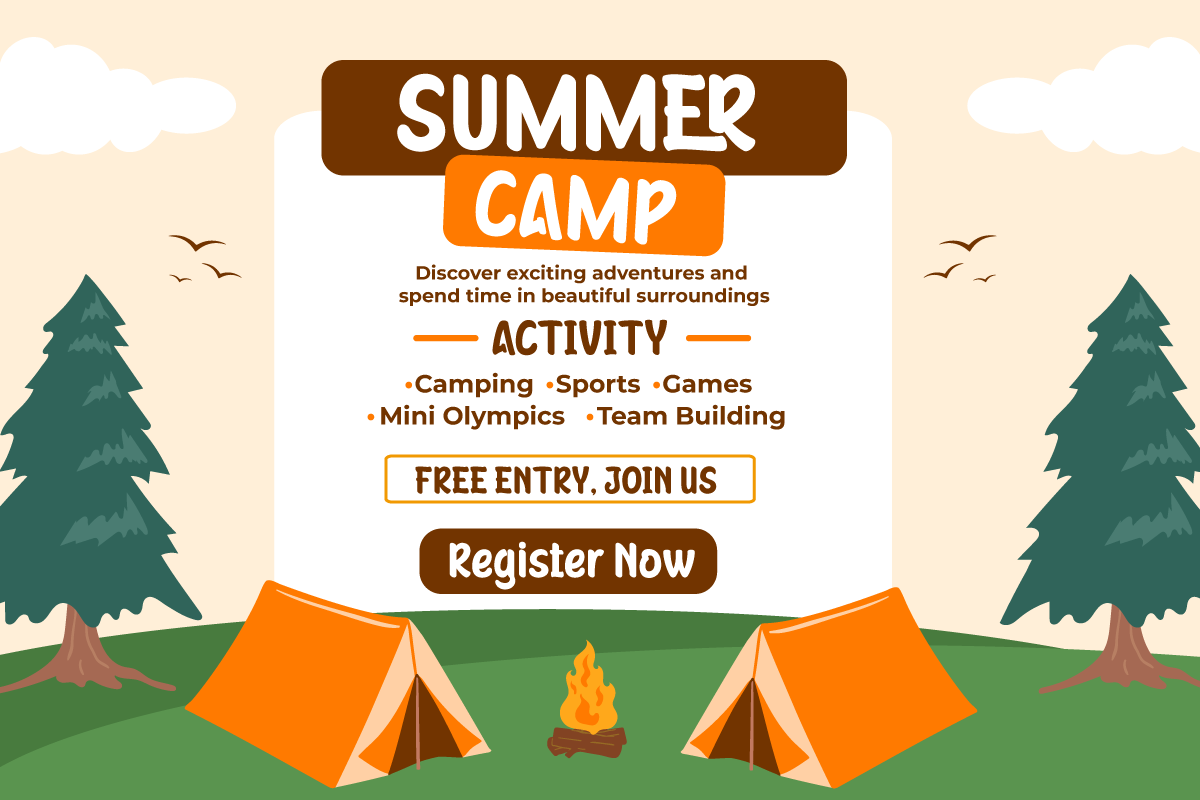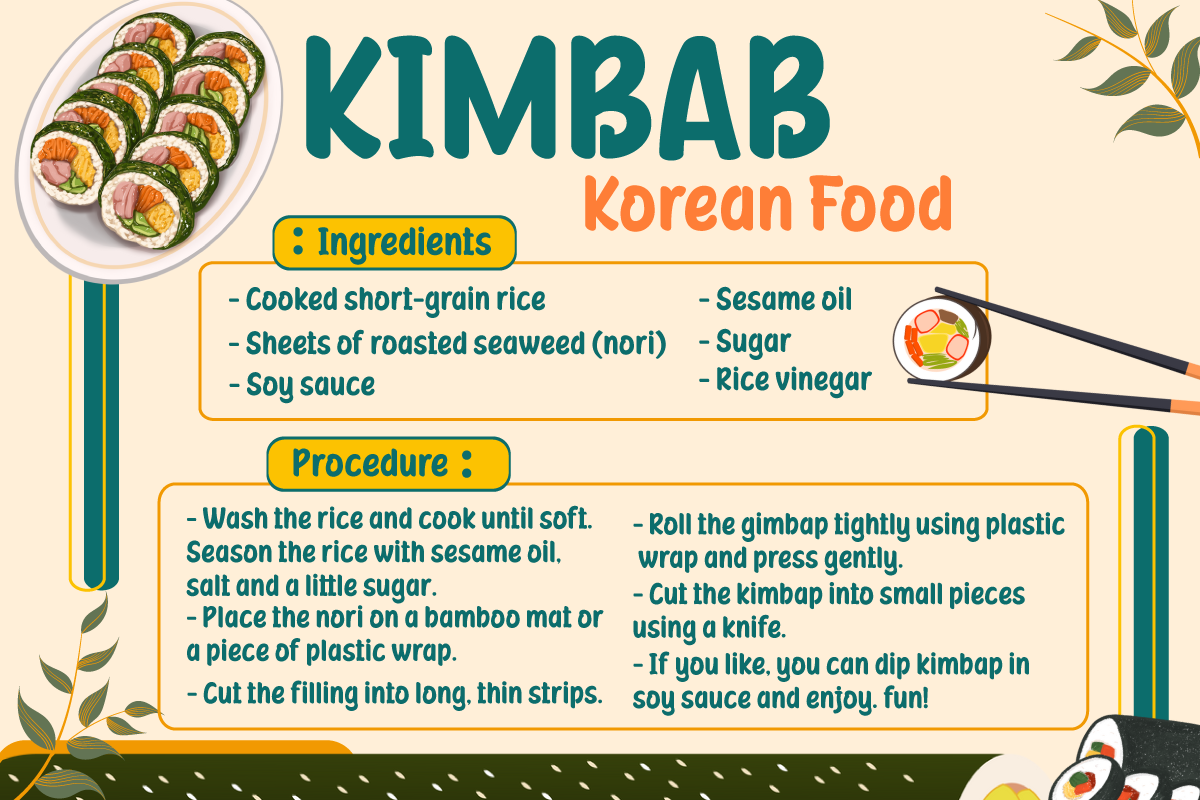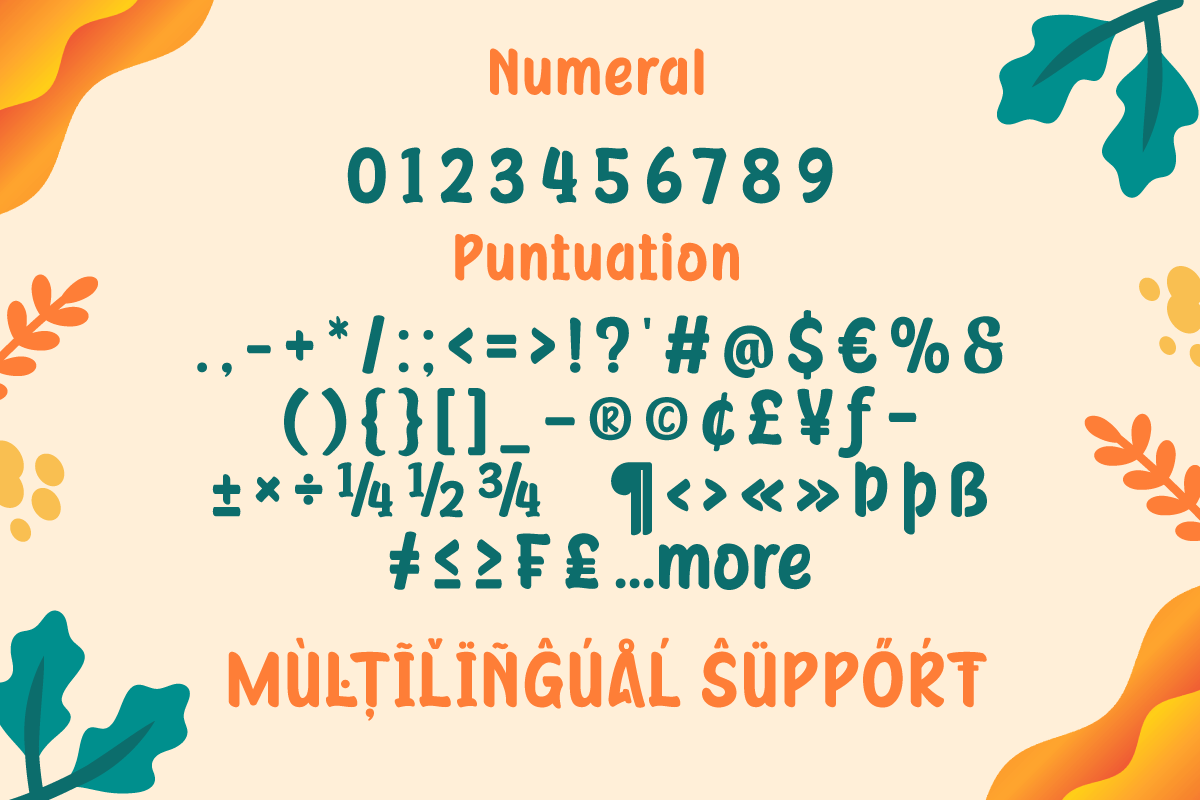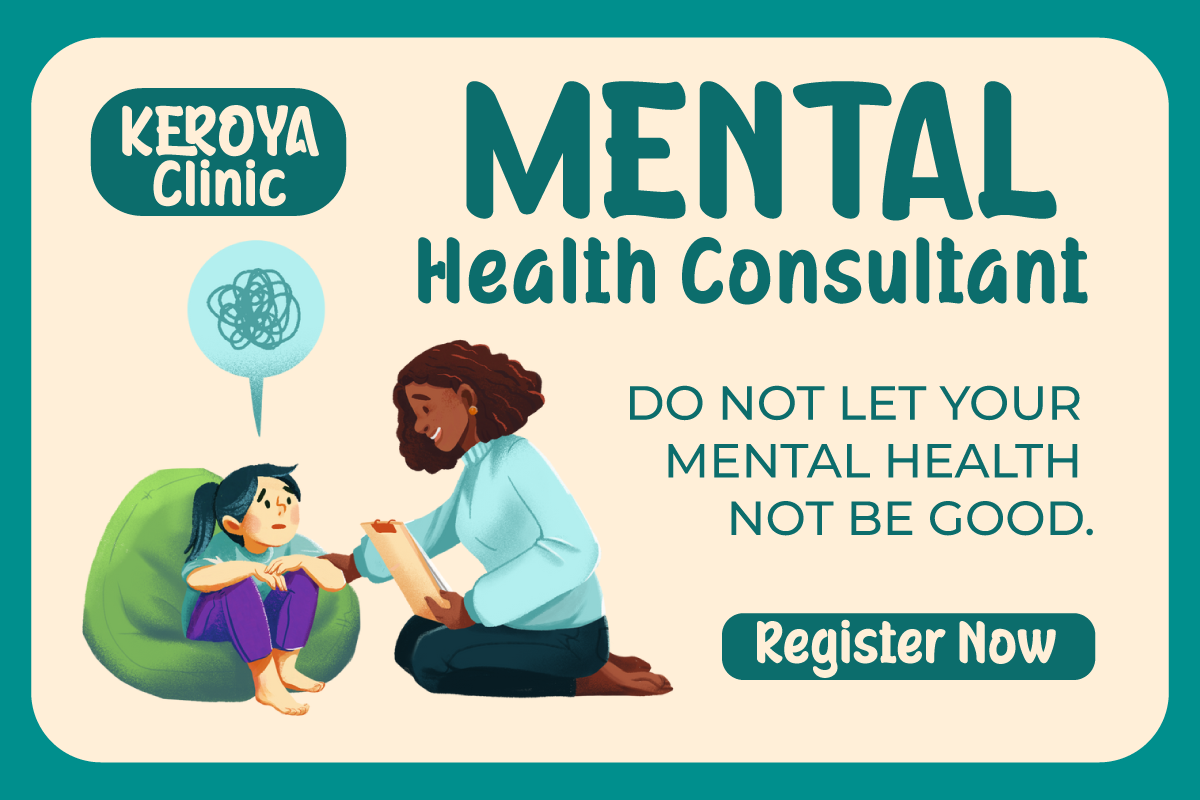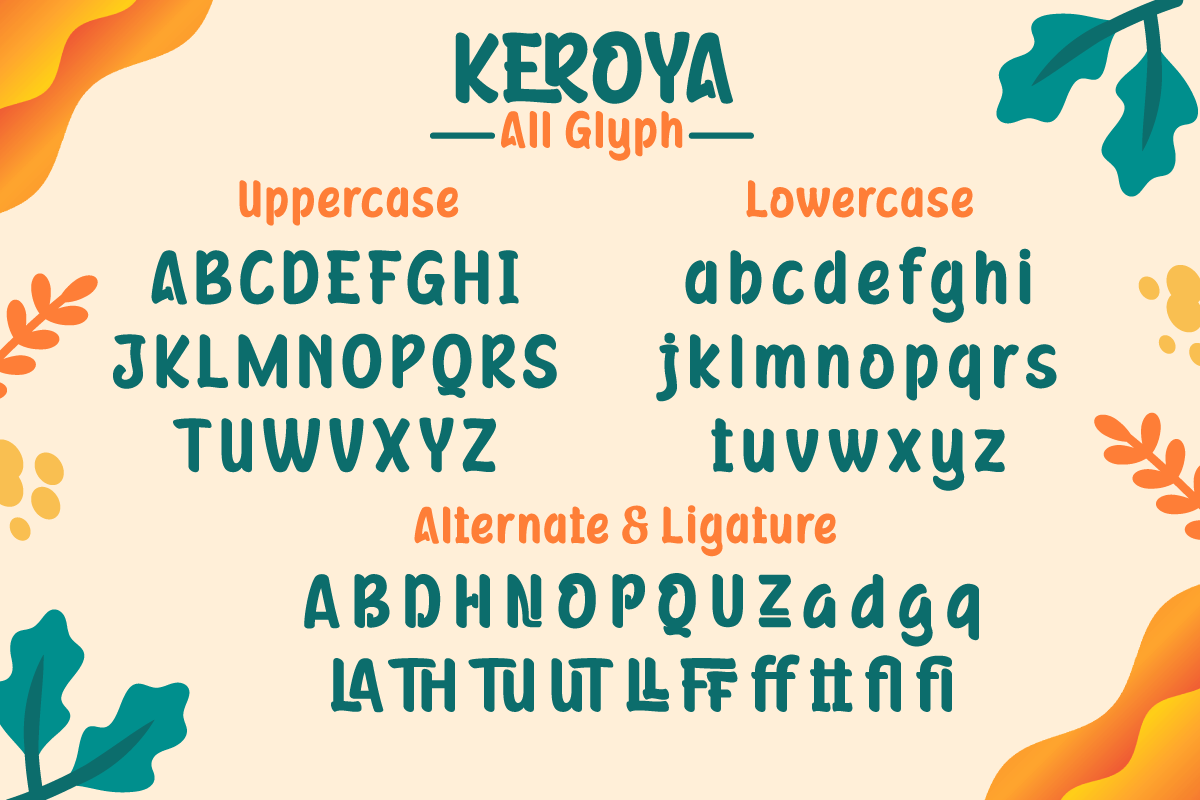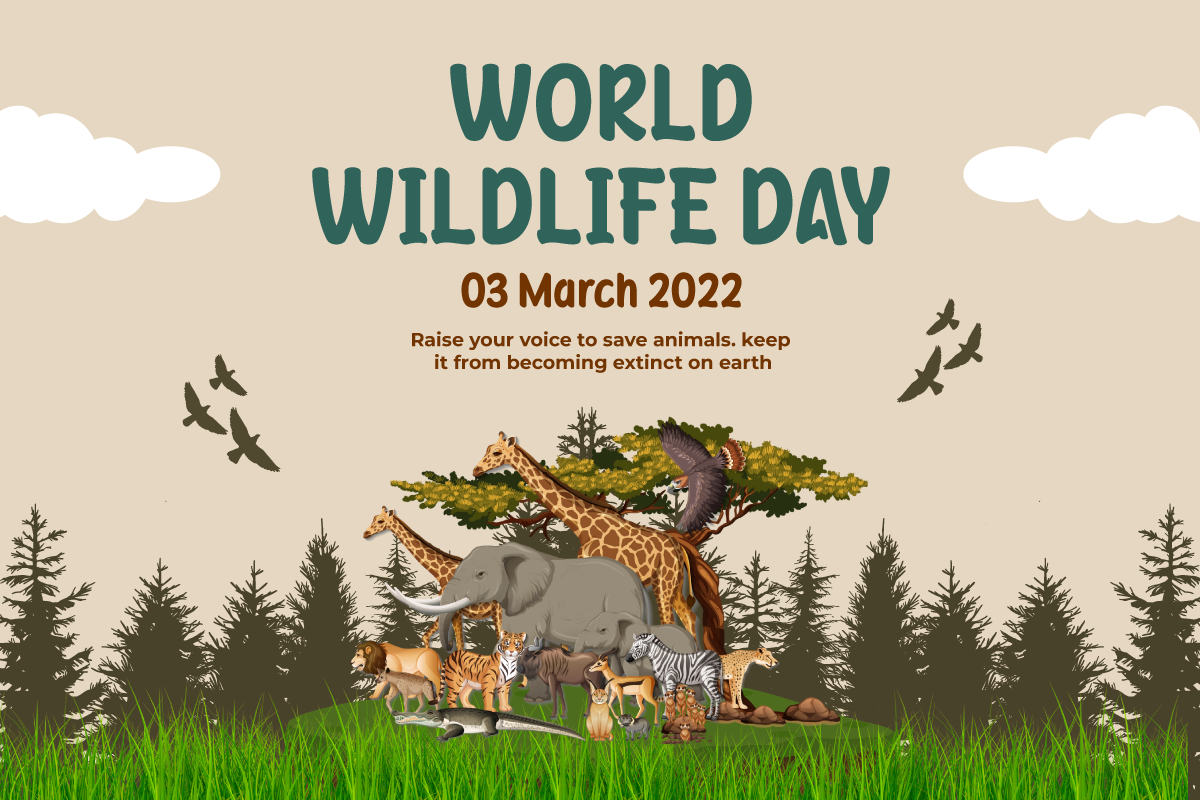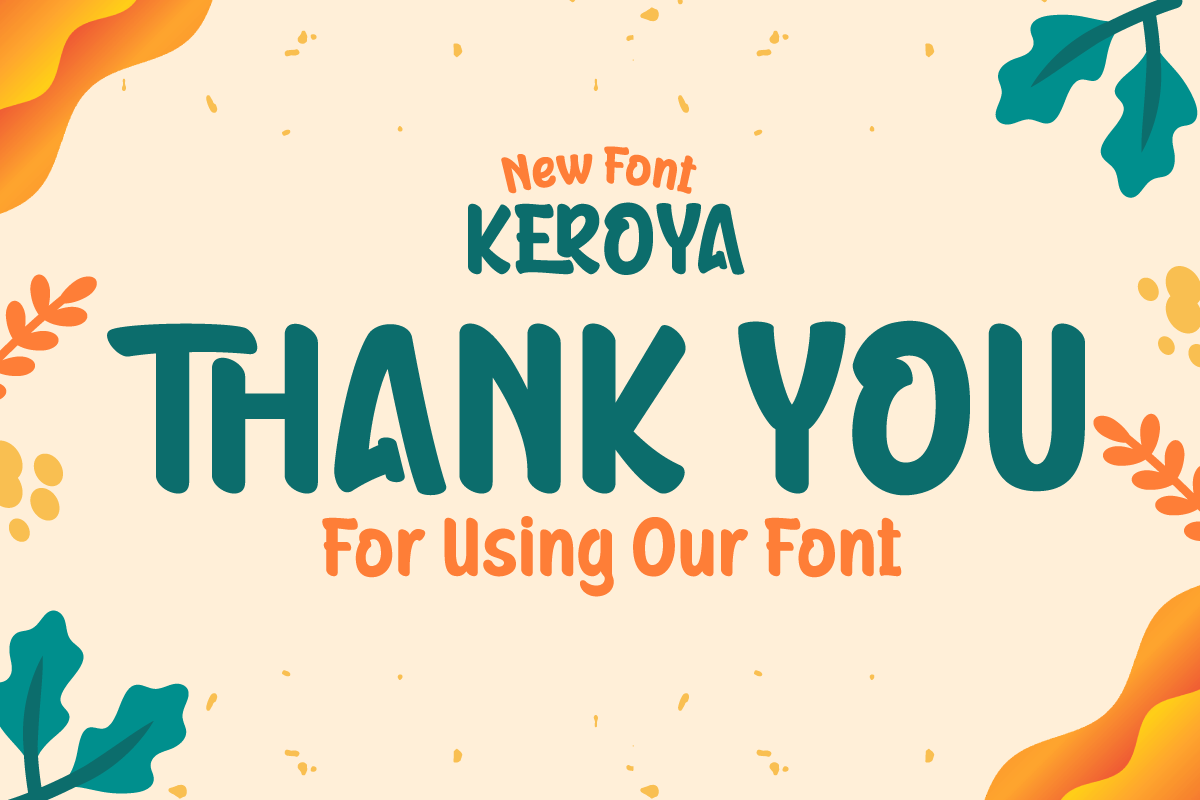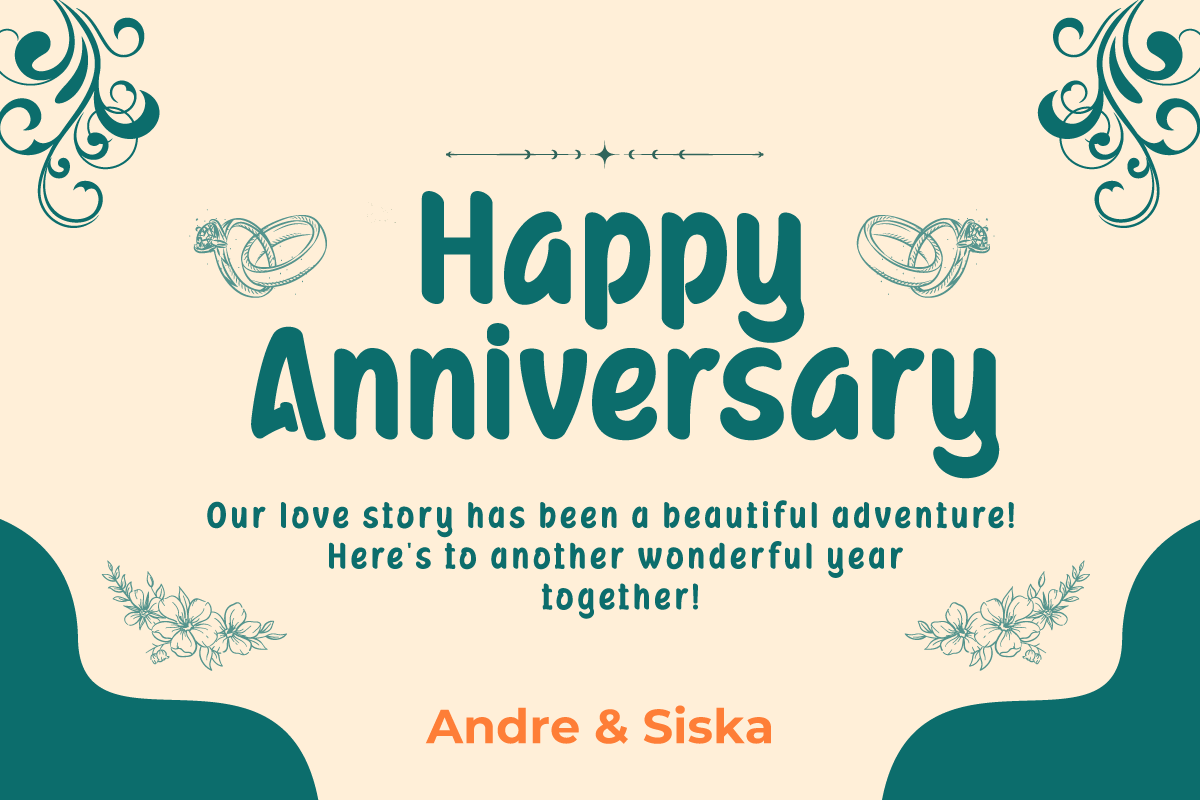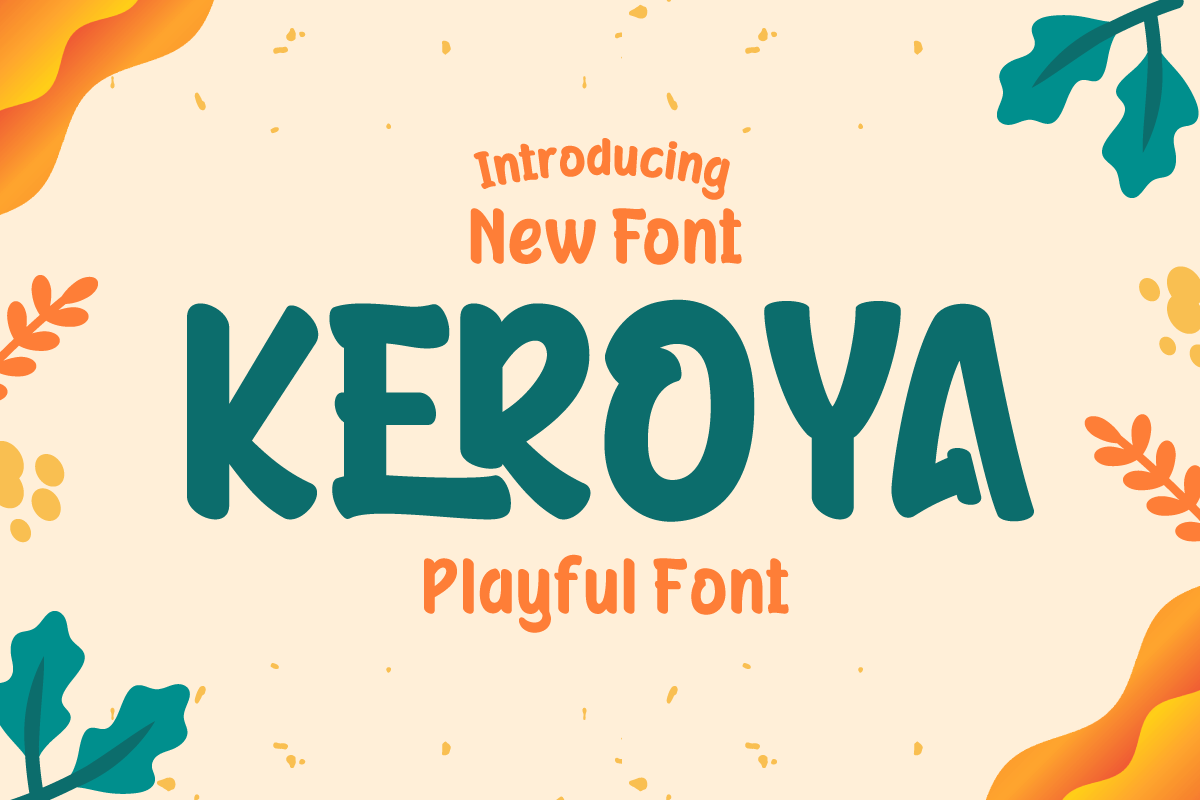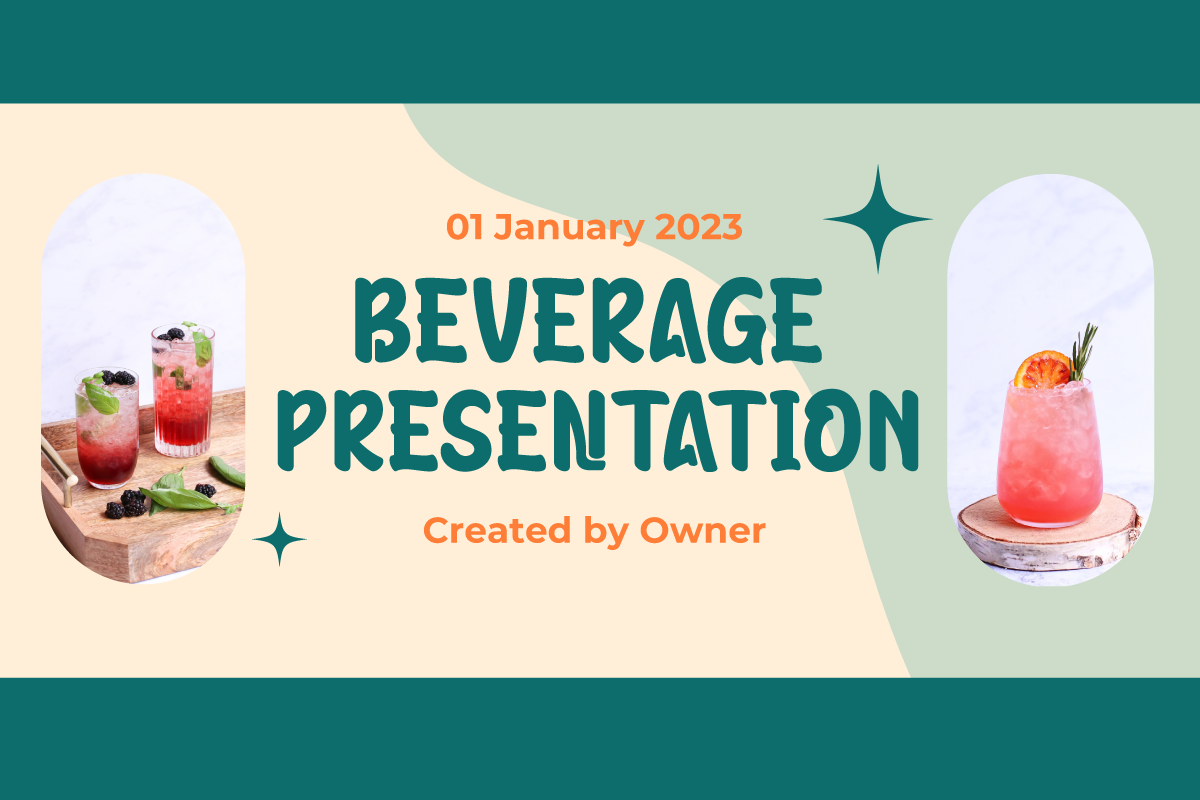
Keroya | Display Playful Font
Introducing "KEROYA Font" - Where Playfulness Takes Center Stage!
Unlock a world of creativity with KEROYA Font, your ultimate choice for adding a playful twist to your design projects.
KEROYA Font is your gateway to a whimsical design journey. Whether you're crafting children's books, vibrant posters, or quirky branding materials, this font is your perfect companion.
With its lively and distinctive characters, KEROYA Font brings a burst of energy and fun to your designs. It's designed to capture attention and leave a lasting impression, making your content stand out with a touch of joy.
Meticulously crafted, KEROYA Font ensures that your message is delivered with a playful and friendly vibe. It adds personality and humor to your projects, instantly making them more engaging.
Unleash your creativity without limits using KEROYA Font. Let your imagination run wild, infuse your designs with a sprinkle of playfulness, and witness your creations come alive with this charming typeface. Elevate your design game with KEROYA Font today!
- Alternate, Ligature